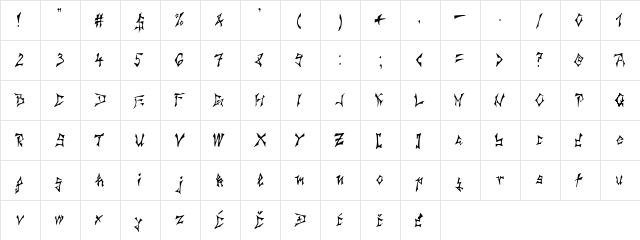
petra dizajn Regular
Design Context for petra dizajn Typeface
petra dizajn is a composed and adaptable typeface that performs quietly and consistently across a wide range of design contexts.